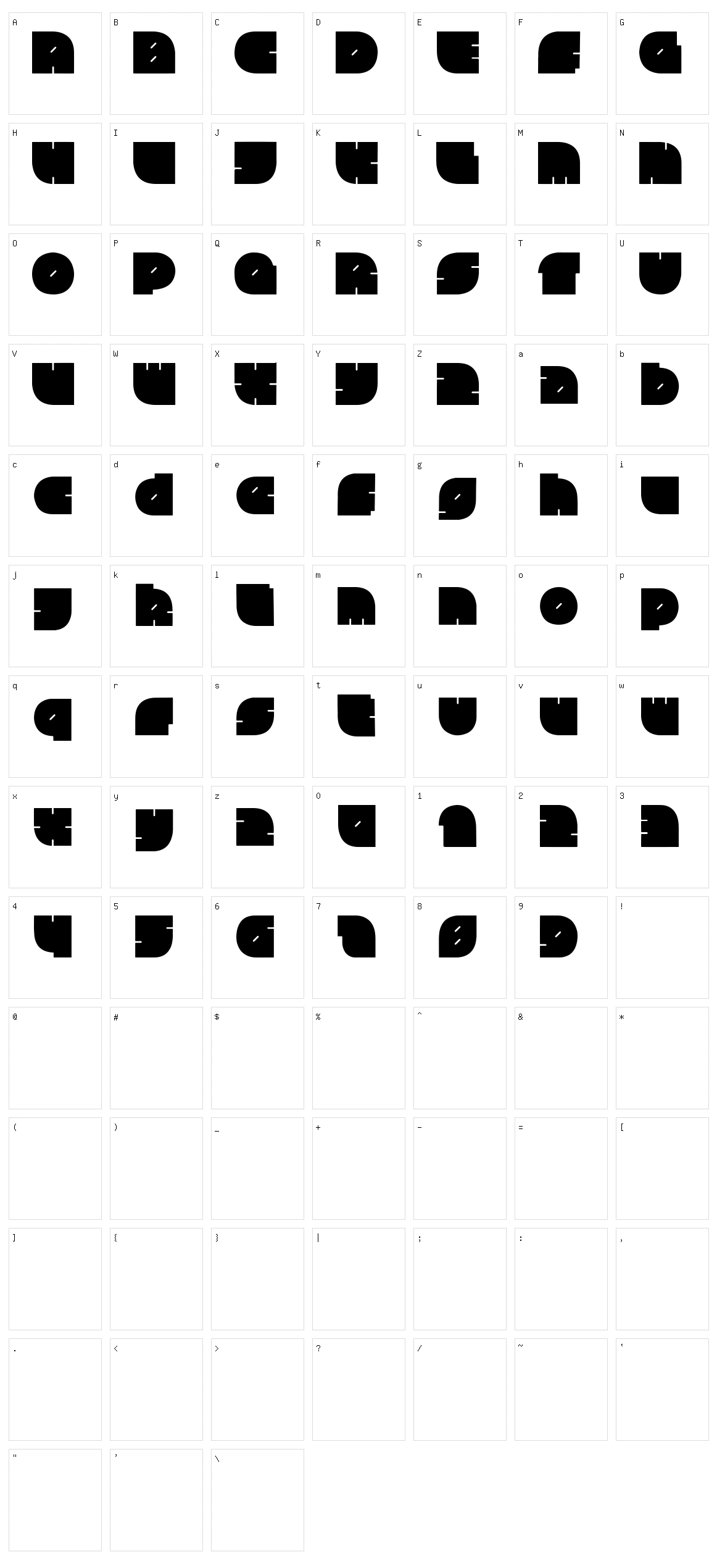
The free font Chubby Square is carefully designed by Syazwani Adi, showcasing a thoughtful balance of creativity and usability and falls under the Groovy font style. When you download the ZIP file, it contains only 12.44 KB of font files, making it lightweight and quick to download. Please review the license details below to understand permitted usage and distribution rights. If license information is not available, we recommend using this font for personal projects only or contacting the author directly for commercial usage permissions.